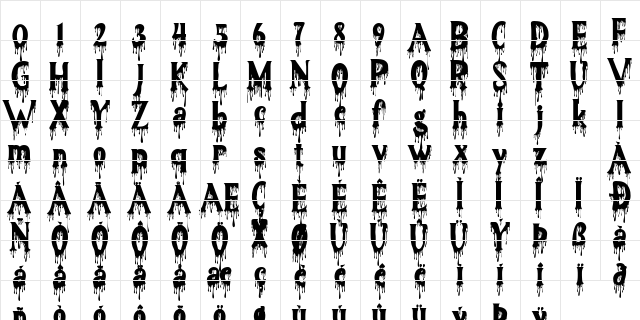
Blood Hunter Regular Free Font
Blood Hunter Regular
Designer: Yoga Letter 2024 (Isroni Yoga Prasetya)
Design Context for Blood Hunter
Blood Hunter carries an unsettling edge - its distorted letterforms are built to unsettle, perfectly suited to horror, Halloween, and dark creative work.
Font Pairing: Pair with a clean neutral sans-serif for body copy to let Blood Hunter's character lead without overwhelming the composition.
Pro Tip: Use Blood Hunter at larger display sizes for maximum impact. Consider generous tracking to let the disturbing character of each letterform breathe.